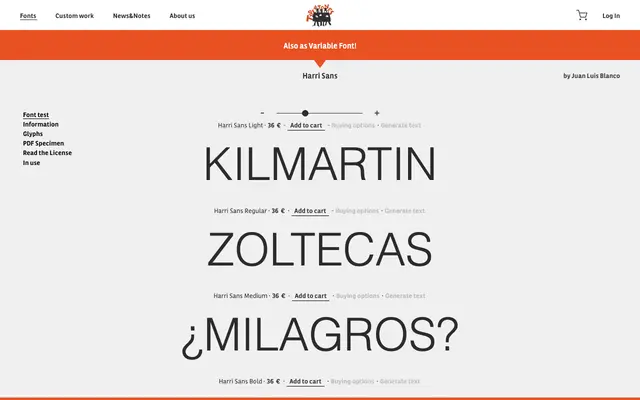
Harri Sans
A five-weight grotesque sans by Juan Luis Blanco, available in standard and condensed widths with a variable font option.
Harri Sans by Juan Luis Blanco spans five weights from Light to ExtraBold in both upright and condensed cuts, giving a total of ten static styles alongside a variable font. The condensed widths extend its usefulness to tighter editorial and display settings. The specimen text, drawn largely from place names across multiple languages, suggests solid Latin Extended coverage.
The family presents a straightforward upright grotesque with condensed variants and a variable font, consistent with the grotesque sans-serif tradition. No overt geometric or humanist characteristics are evident from the specimen.